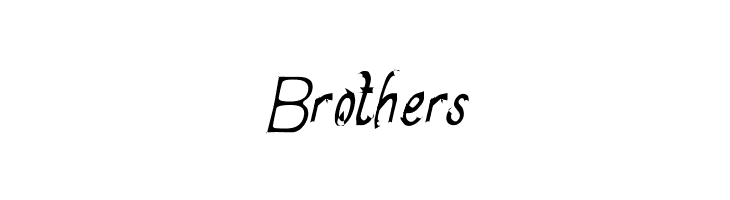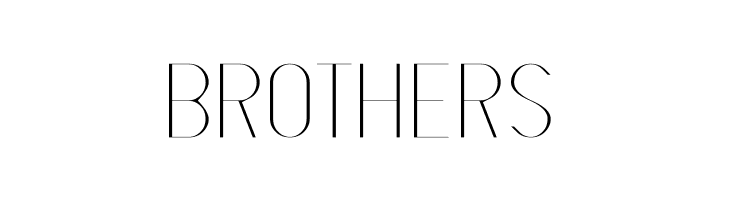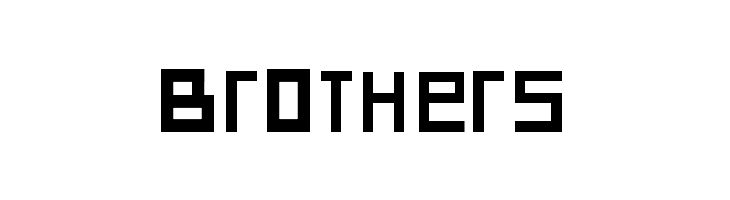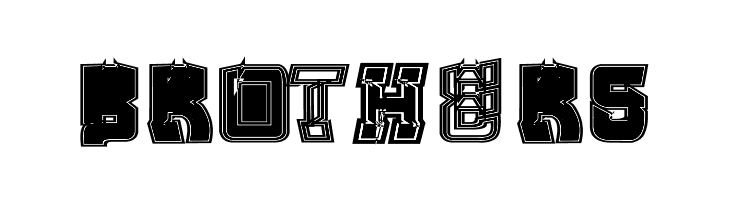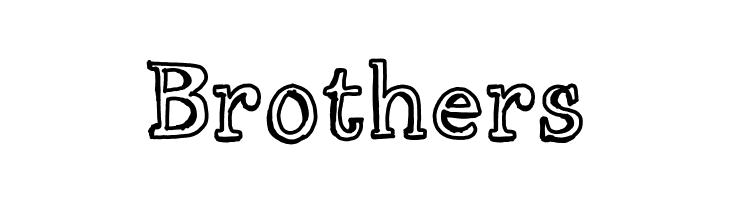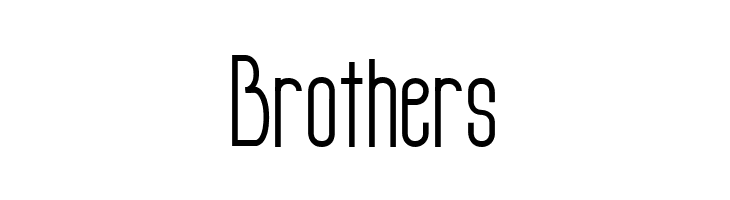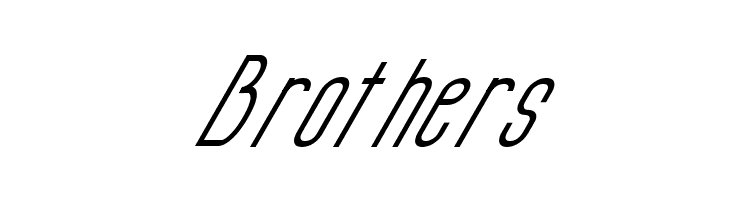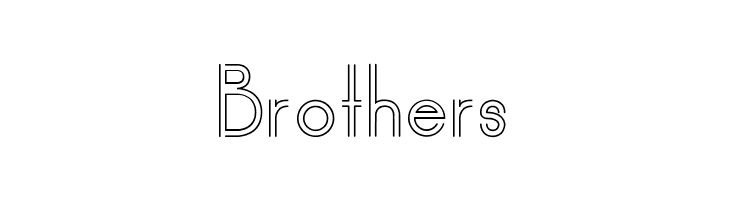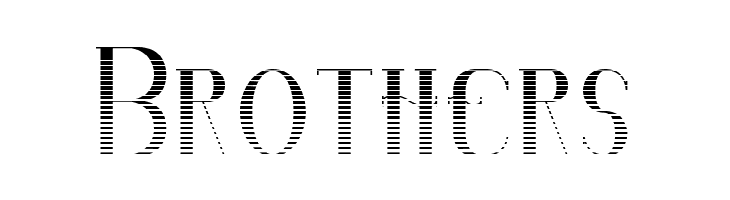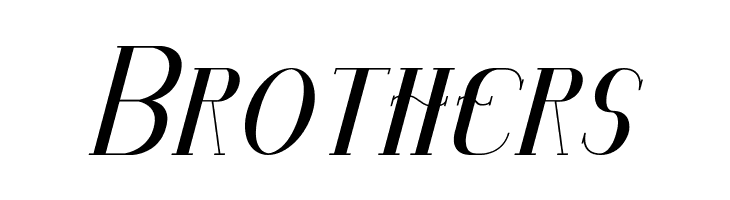
An artistic, cursive script font with flowing, decorative elements.
A classic serif font with elegant strokes and high contrast, ideal for formal use.
An elegant italic font with sharp serifs and dynamic letterforms.
A geometric, pixelated font with a modern, tech-inspired design.
A playful, hand-drawn font with bold, sketch-like outlines.
A modern, decorative font with wave-like curves and dynamic strokes.
A geometric, modern font with thin lines and angular forms.
A modern, geometric font with double-line strokes and a sophisticated appearance.
A bold 3D font with a modern, geometric style and excellent readability.
An artistic and decorative font with intricate line work and an Art Deco influence.
A bold, italicized font with a 3D effect, perfect for striking and modern designs.
A bold, decorative font with a 3D effect and intricate line work.
A high-contrast, elegant font with modern and classic elements.
An elegant, bold italic font with high contrast and classic styling.
A bold, college-style font with angular serifs and a double-line shadow effect.
A bold, modern font with a gradient line pattern for a striking visual effect.
A bold, decorative font with a shadow effect, offering a modern and classic look.
A bold, decorative font with a dotted pattern and modern style.
A tall, narrow, and modern font with clean lines and a sleek appearance.
A modern, italic font with elongated, narrow characters.
A playful, hand-drawn font with tall, narrow characters and a whimsical style.
A decorative and artistic font with bold, angular uppercase letters and whimsical lowercase forms.
A modern, sleek font with rounded edges and geometric structure.
A bold, modern font with geometric and rounded elements, offering elegance and versatility.
A bold, italicized font with smooth curves and a modern, condensed style.
A sleek, modern italic font with smooth curves and dynamic style.
A modern, geometric font with rounded edges and a sleek design.
A sleek, modern italic font with smooth curves and consistent stroke width.
A modern, geometric font with rounded edges and uniform width.